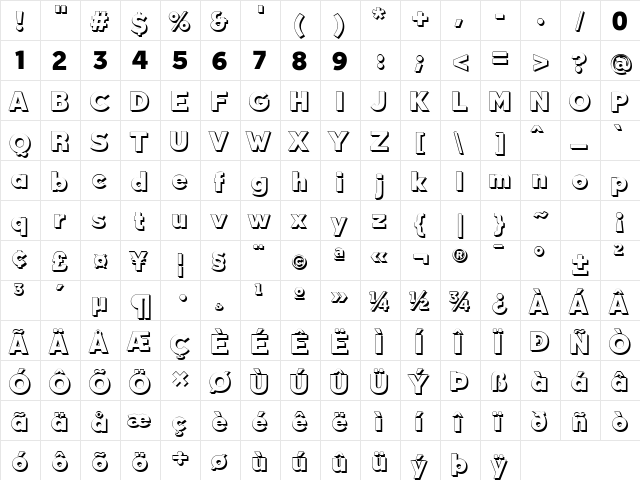
Qebab Shadow FFP Regular
Design Context for Qebab Shadow FFP Typeface
Qebab Shadow FFP is built around its visual character rather than neutral utility — its distinctive forms are designed to make an impression at display sizes.
Font Pairing: Pair with a clean neutral sans-serif for body copy to let Qebab Shadow FFP's character lead without overwhelming the composition.
Pro Tip: Treat Qebab Shadow FFP as the centrepiece of your typographic hierarchy. One strong heading set in a decorative face can carry an entire layout.